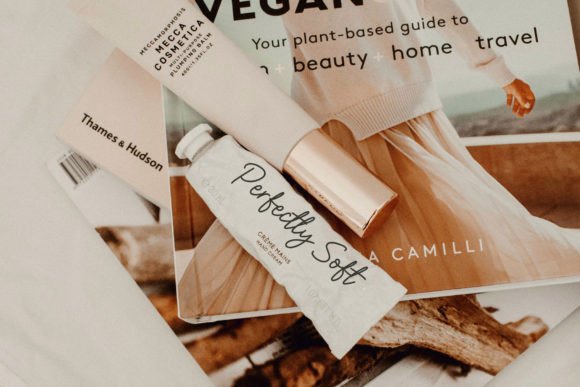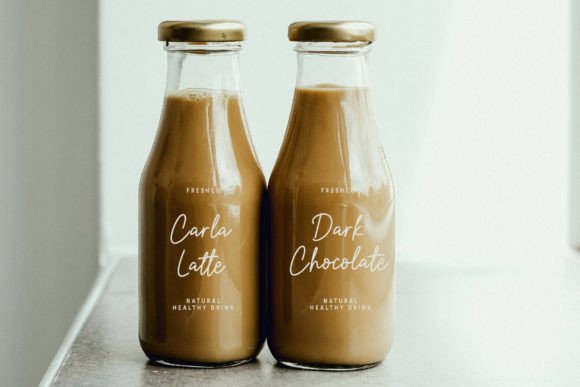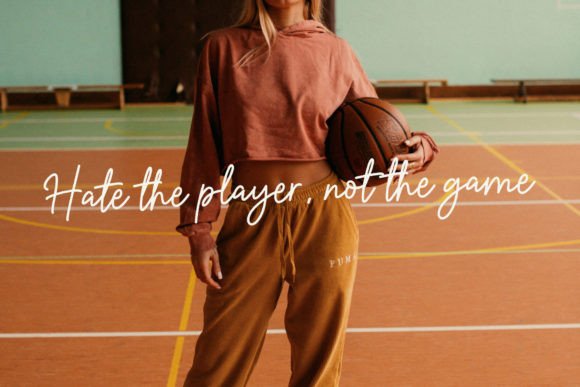
Introduction to Katherine Thompson Font
As a designer, you know the feeling of staring at a blank page, waiting for inspiration to strike. It’s that moment when everything clicks, and a fresh idea is born. For me, it was a simple phrase in a handwritten note that sparked the search for the perfect font. And that’s when I stumbled upon the Katherine Thompson Font – a stunning monoline signature script font that has been a game-changer in my creative projects.
This high-quality font is not only a design resource but also a free download, making it an excellent addition to any designer’s toolkit. Its stylish and casual charm makes it incredibly versatile, suitable for branding, logos, social media posts, and more. With its transparent background, you can easily layer it over images or use it as a standalone element in your designs.
Katherine Thompson Font
- High-quality font with a unique, hand-drawn design making it perfect for creative projects.
- Comes in a transparent background, allowing for easy customization and versatility in design.
- Features a large character set, including uppercase and lowercase letters, numbers, and punctuation marks.
- Designed with a resolution of 300 DPI, making it suitable for both digital and print applications.
- Unique characteristics include elegant flourishes and subtle texture, adding a touch of sophistication to any design.
Honest Review: Katherine Thompson Font
As a designer, I’m always on the lookout for high-quality design resources that can elevate my creative projects. Recently, I stumbled upon the Katherine Thompson Font, and I must say it’s been a game-changer for my latest design endeavors.
- The Katherine Thompson Font offers a beautiful, elegant aesthetic that’s perfect for projects requiring a touch of sophistication.
- The transparent background allows for seamless integration with various design elements.
- The font may not be suitable for projects requiring a bold, edgy look.
- The font’s elegance may make it difficult to pair with more playful design elements.
Overall, the Katherine Thompson Font is an excellent addition to any designer’s toolkit. Its high-quality design and transparent background make it a versatile resource for a wide range of creative projects. Whether you’re working on a corporate identity or a personal design project, this font is definitely worth considering.
How to Use Katherine Thompson Font
The Katherine Thompson Font is a high-quality, free download available for creative projects. This font is ideal for designers looking for a unique and stylish typography option.
Tips for Getting the Most Out of Katherine Thompson Font
To get the most out of the Katherine Thompson Font, try the following:
- Experiment with different font sizes and styles.
- Use the font with a transparent background to create a unique design effect.
- Combine the font with other design elements, such as images and graphics.
The Katherine Thompson Font is commonly used for:
- Wedding invitations and stationery.
- Business cards and marketing materials.
- Graphic design and visual arts projects.
Alternatives to Katherine Thompson Font
Alice Script
Alice Script is a high-quality, elegant font perfect for creative projects that require a touch of sophistication. It features a transparent background and is ideal for use in titles, headings, and other design elements. When to use: wedding invitations, luxury branding, and high-end advertising.
Compared to Katherine Thompson Font, Alice Script has a more refined and polished look, making it suitable for more formal and professional designs.
Great Vibes is a beautiful, handwritten font that’s ideal for creative projects that require a playful and whimsical touch. It features a transparent background and is perfect for use in titles, headings, and other design elements. When to use: social media graphics, blog posts, and advertising campaigns.
What is the recommended size for using the Katherine Thompson Font in a design project?
The recommended size for using the Katherine Thompson Font depends on the specific design application and the intended use of the font. However, as a general rule, it’s best to use the font at a size of 12 points or larger to ensure optimal readability and legibility. You can also experiment with different font sizes to achieve the desired visual effect for your creative project.